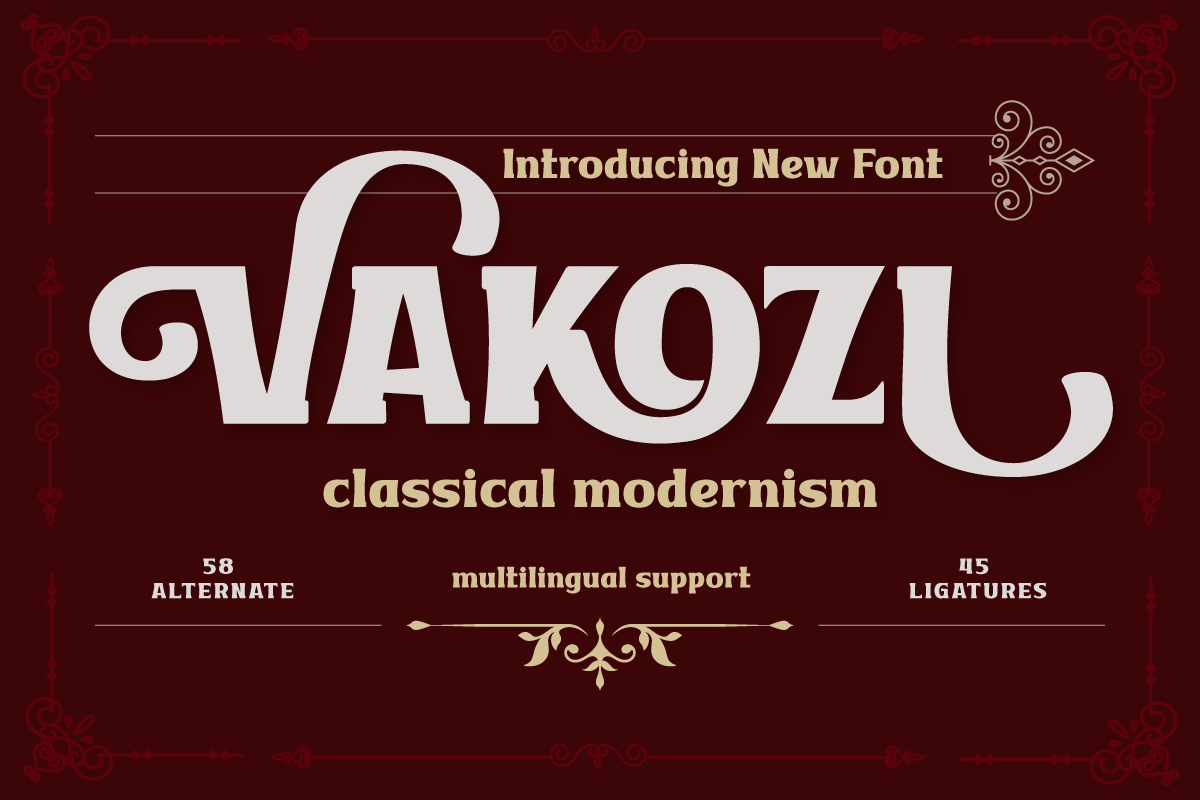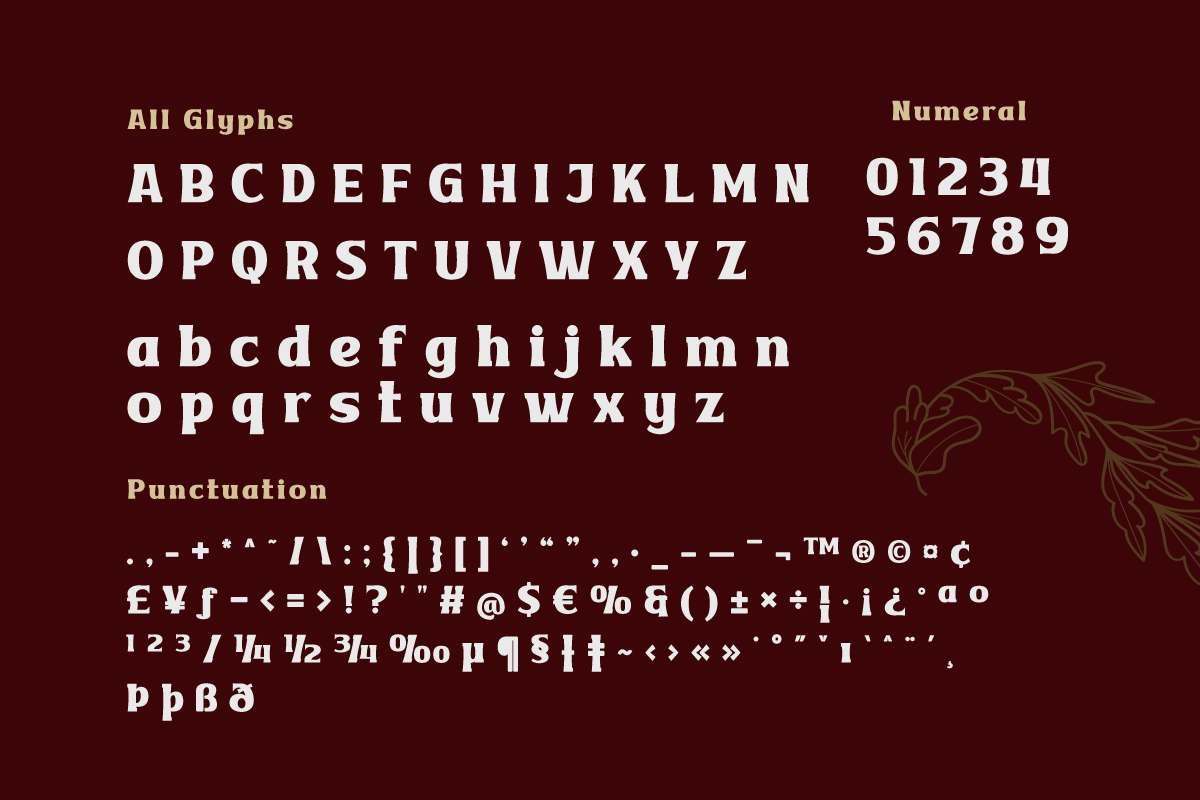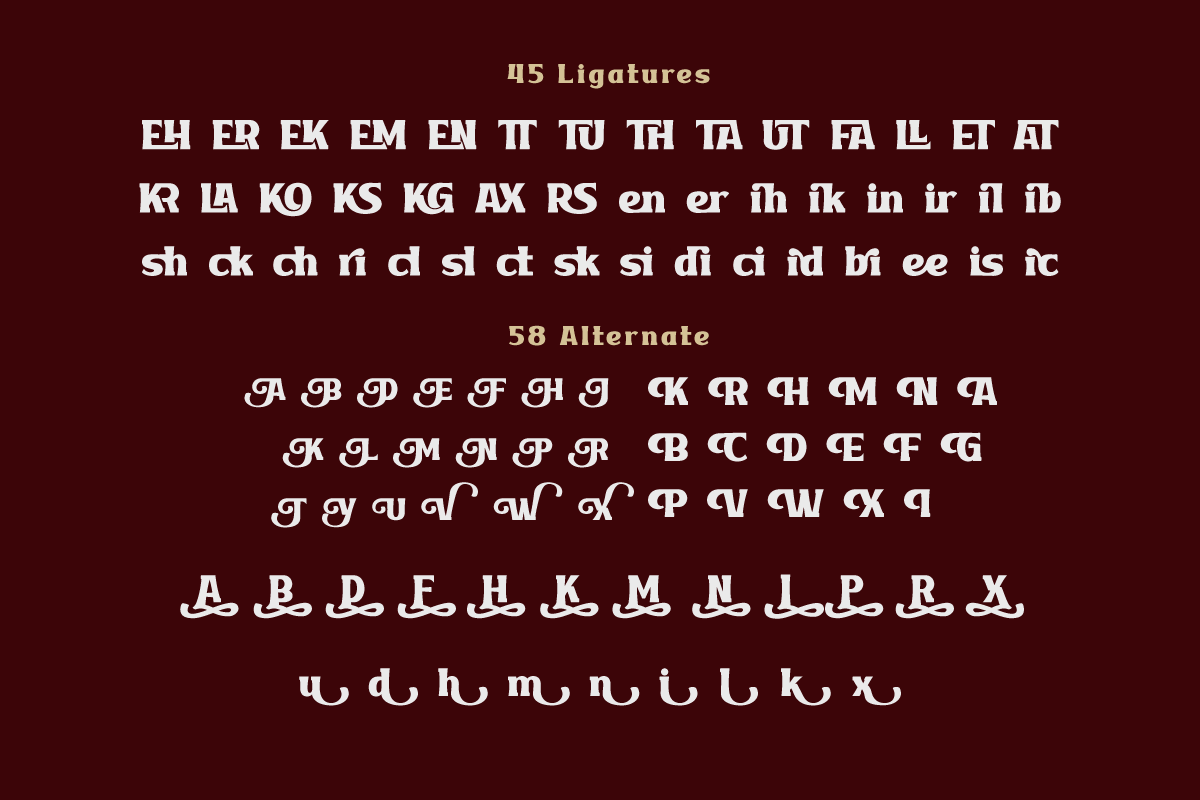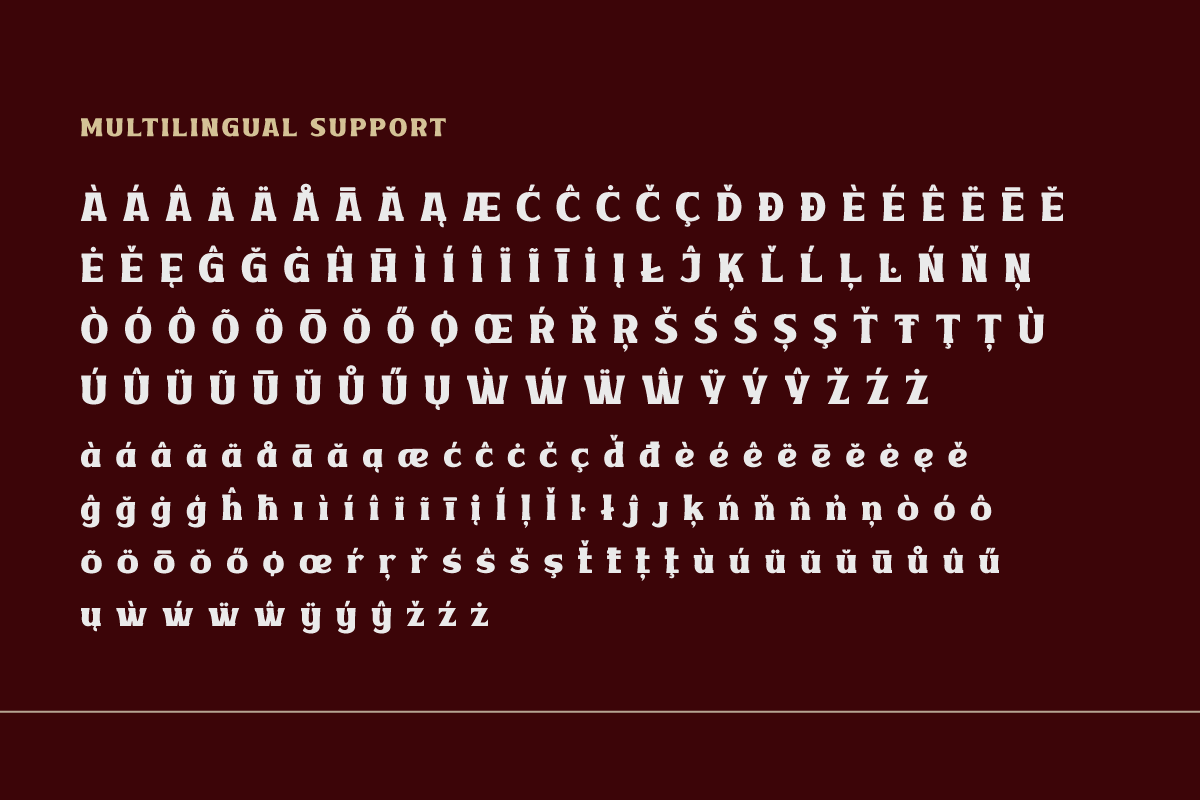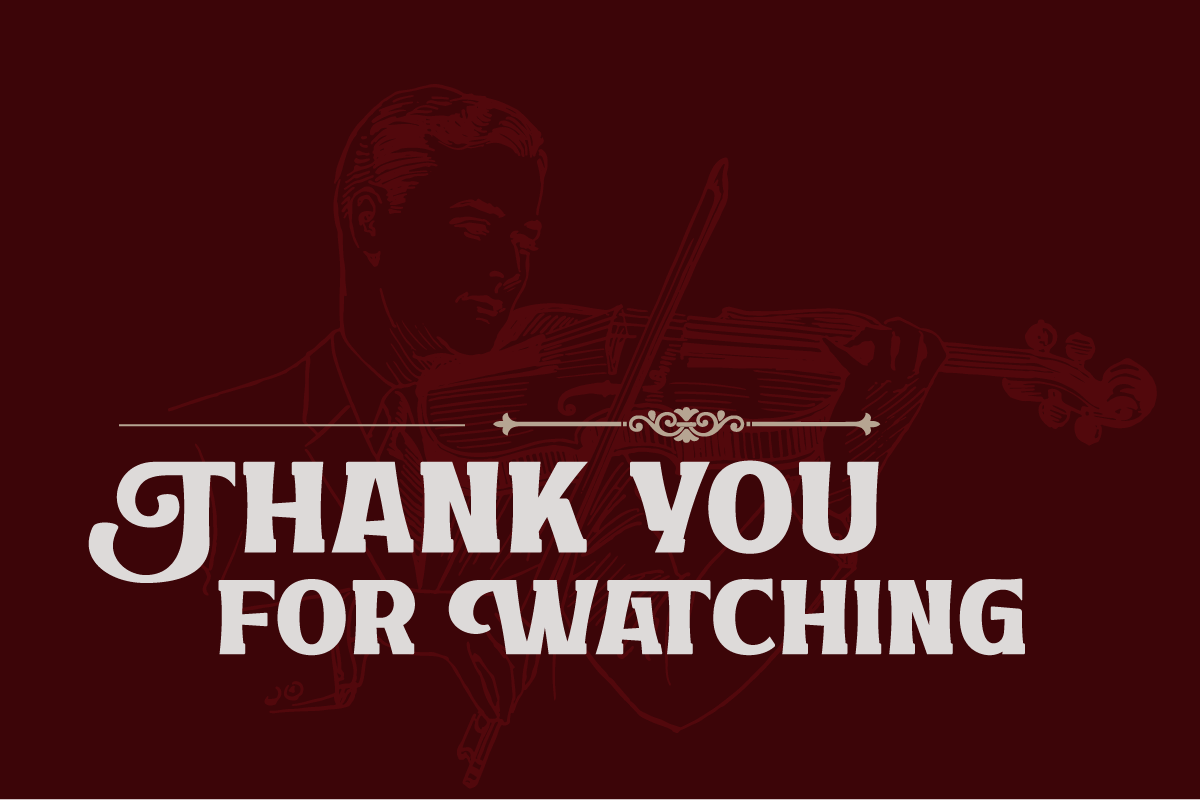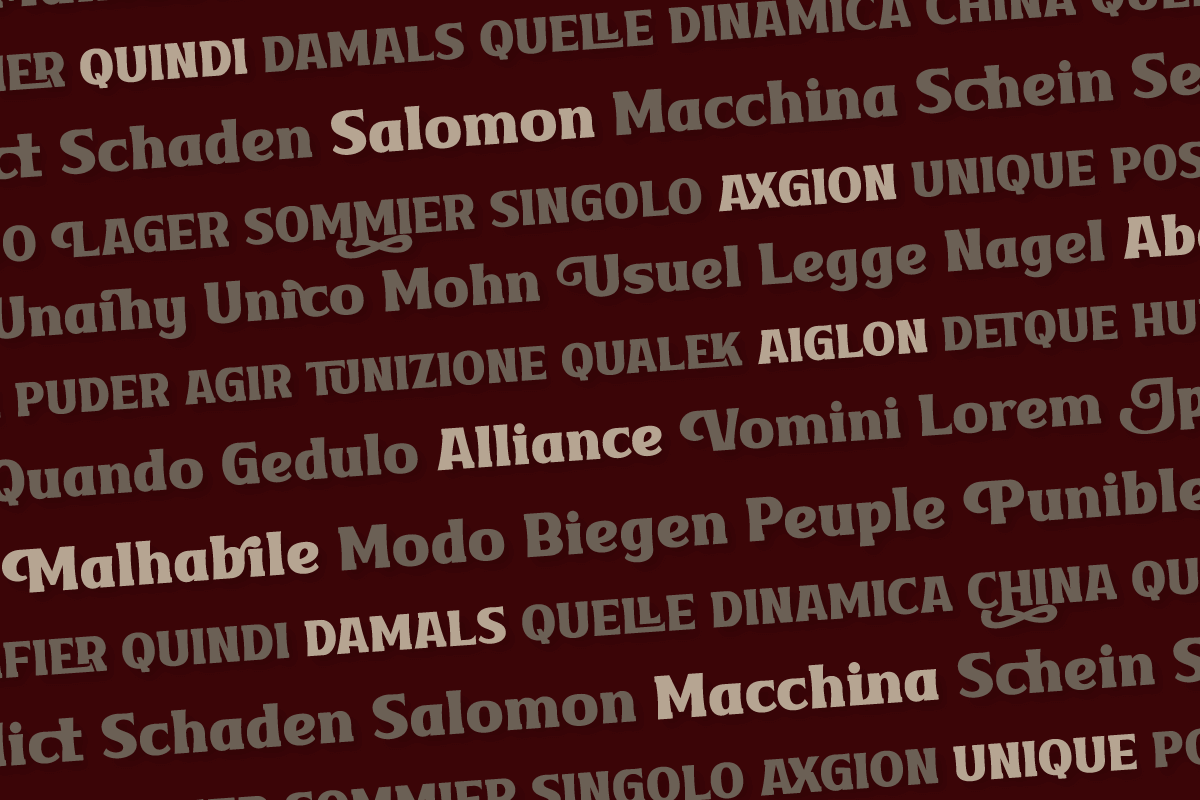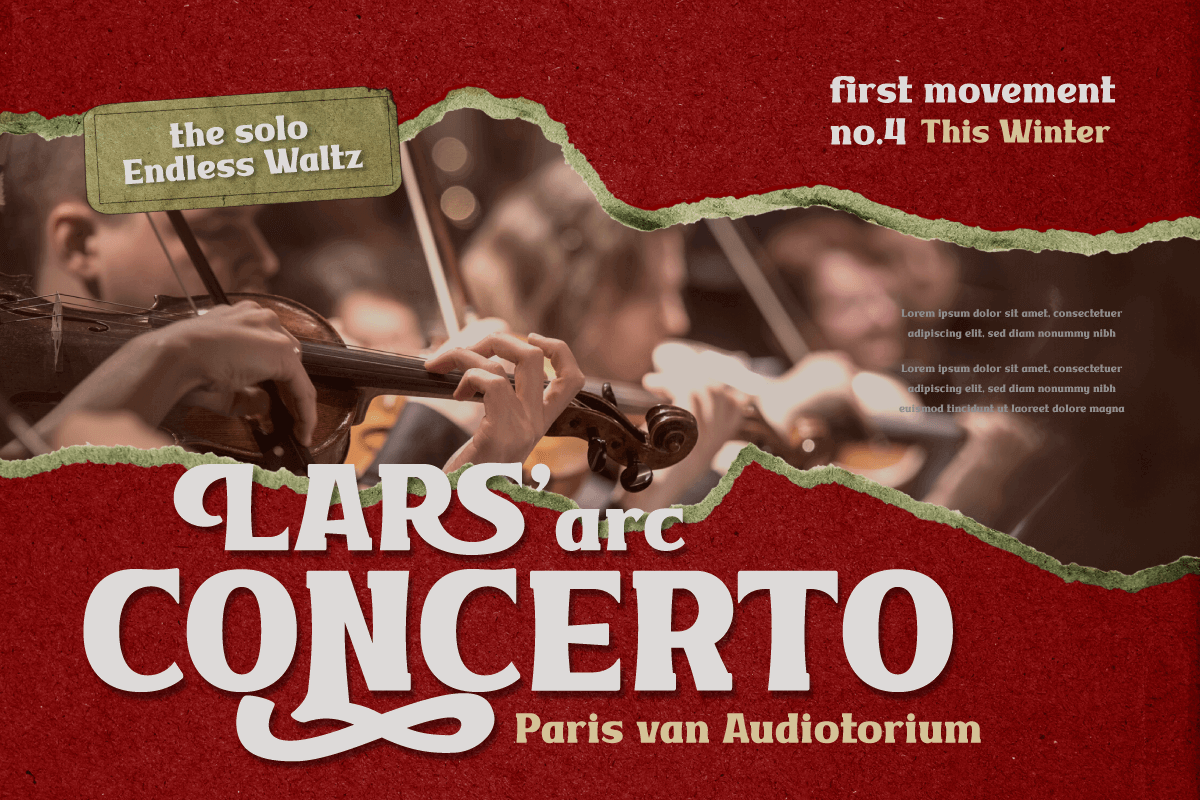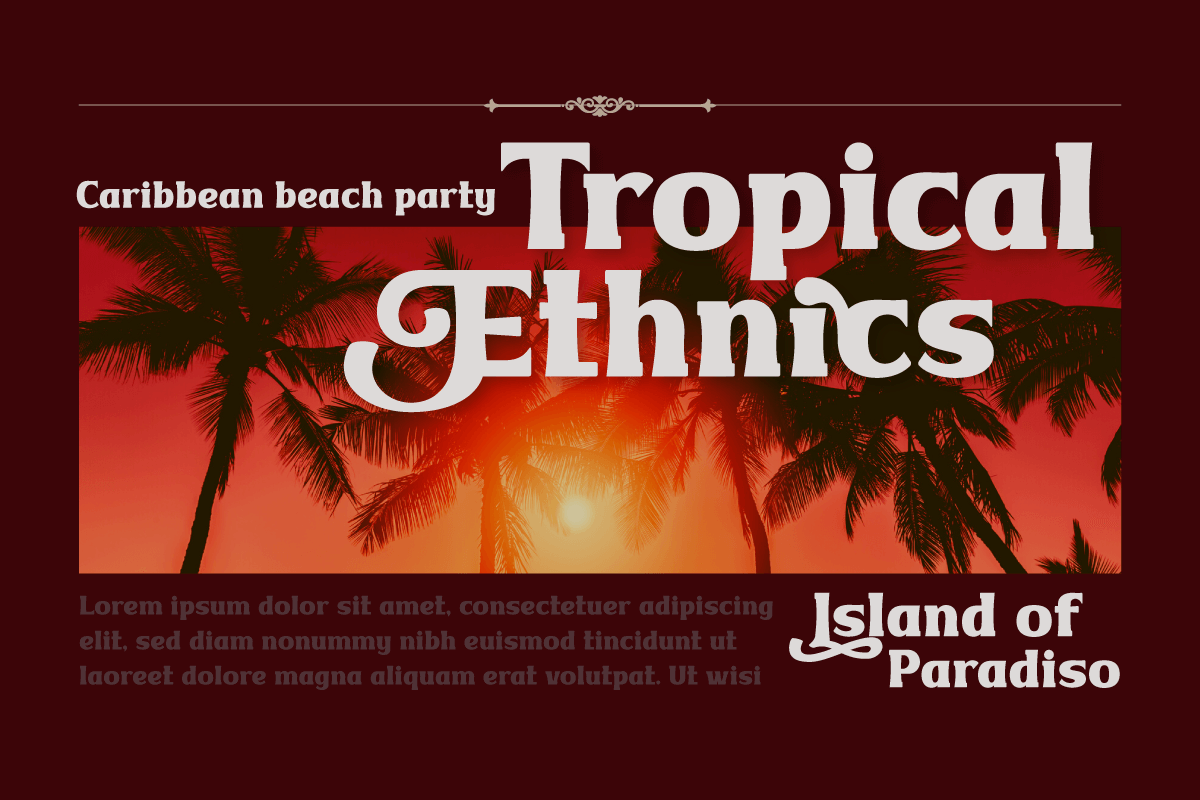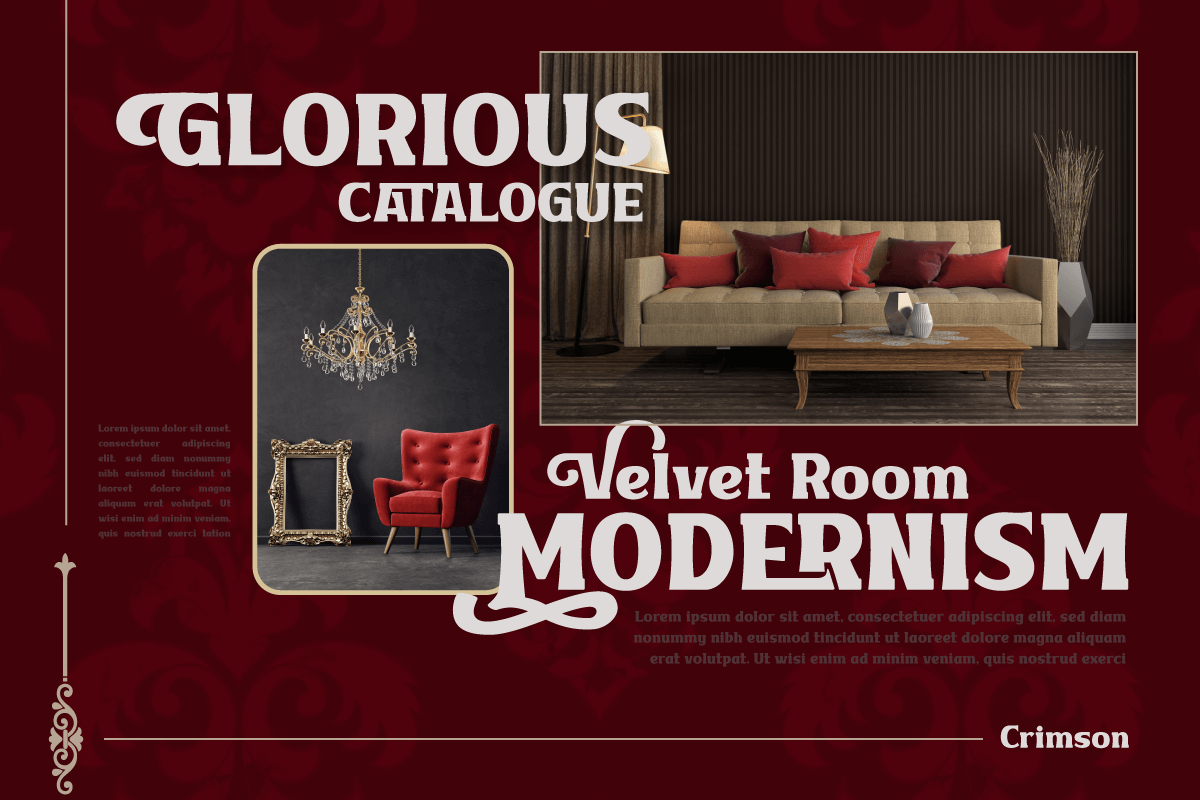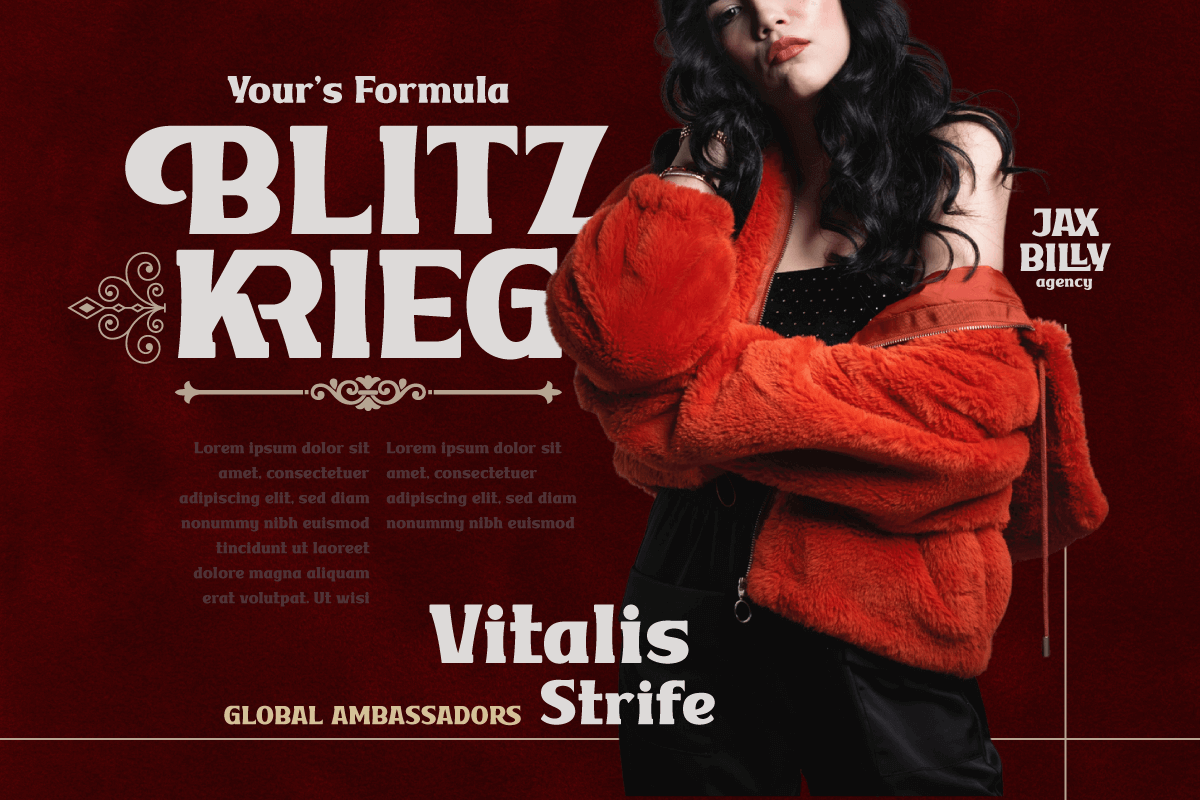
VAKOZI | Serif Classic Modernism
Vakozi is a stunning classic serif font with timeless elegance and alluring modern touch. Able to be the perfect solution for various projects that require an elegant classic modernism theme. Showing the beauty of a well-proportioned serif design, Vakozi presents a visual harmony that captivates the eye. Each letter is exquisitely detailed, creating a look that embodies the luxury and sophistication of a timeless classic.
In order to provide flexibility and creativity, Vakozi is equipped with impressive features. From eye-catching ligatures to alternative variations that provide a unique style, this font allows you to express ideas and concepts with complete freedom. In addition, with extensive multilingual support, Vakozi can be used in multiple languages without a hitch.
Are you looking for a font that combines classic elegance with a stunning modern twist? Vakozi is the perfect choice. With a stunning classic serif style, creative features such as alternate ligatures and variations, and the ability to support multiple languages, this font will quickly grab the attention of your prospects and provide a stunning aesthetic feel in no time.